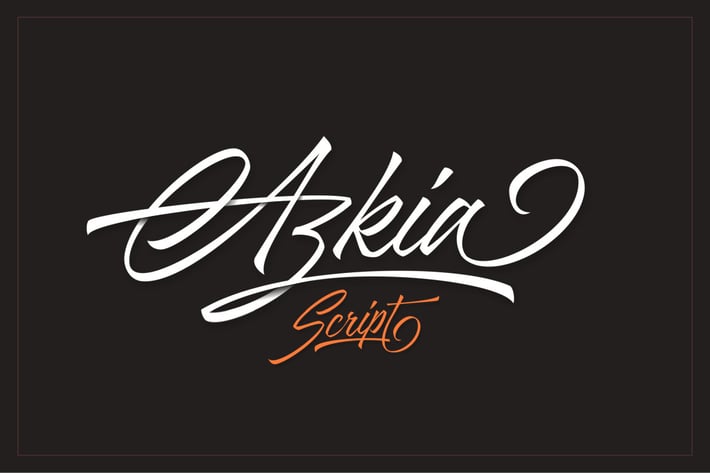
Azkia Script Font
Azkia Script is a typeface made from many variations of brushpen calligraphy exercises ; rough Sketches on paper and redraw all the letters smoothly in computer.
With more than 1200 Glyphs , this font was packed with large OpenType Features Table.
The features includes: Stylistic Alternates, Swashes, Ornament, Contextual, Stylistic Set [SS01-SS23] , PUA Unicode and many other alternate character to choose. Please see the preview image for details.